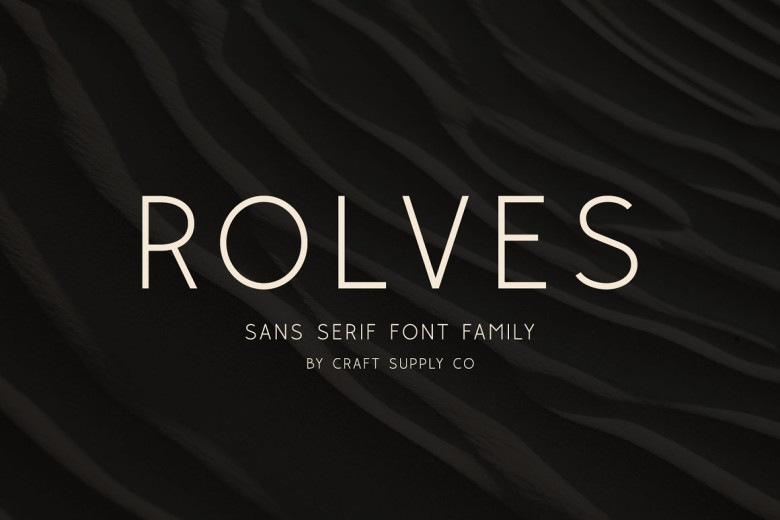
Rolves Font
The Rolves Sans Serif Font Family is a modern sans serif font family with cuts that refer to the modernist style of sans serif. The key features of Rolves – Sans Serif Font are relatively low strokes, character forms that are a little squared-off, and an business-like simplicity informed.
Rolves Sans Serif Font Family is designed from the start with a very rational structural understanding: a blend of main geometry and an optical balance. Combining a number of styles Rolves Sans Serif Font Family is good for logo, gift card, quotes, poster, branding, name card, stationary, creation titles, blog editorial, art lettering, and any artwork.
Suitable for art, modern envelope writing or novel design, perhaps like a hand design or watercolor stamp, style, art style, any DIY project, title books, marriage is great, pop style, dusty design or any job to make our art or design good-looking trendy project.
Rolves Sans Serif Font Family